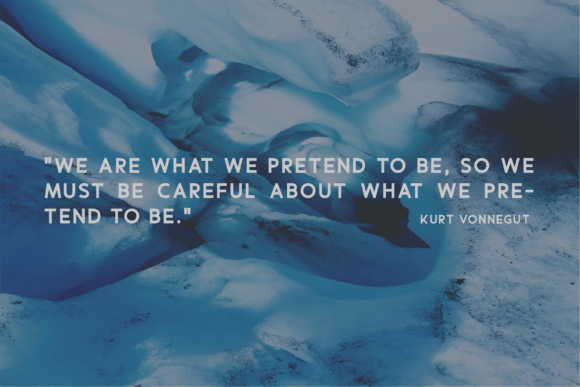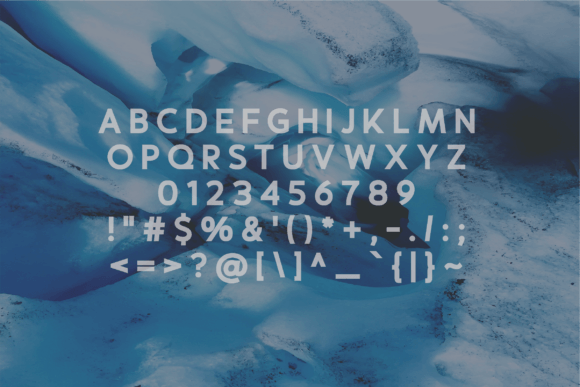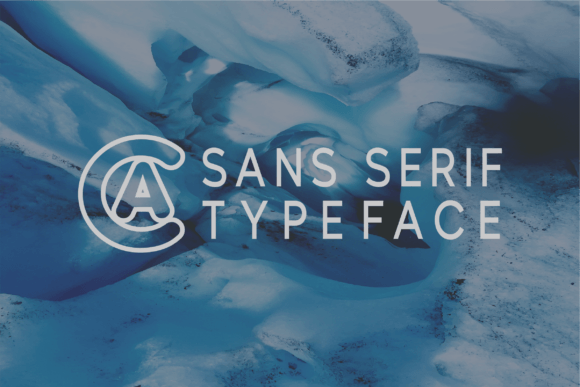
Introduction to Pretosh Loving Font Font
Fonts play a crucial role in design, and the Pretosh Loving Font font is a typeface that brings both character and versatility to any project. Whether you’re working on a branding project, a website, or a print design, the Pretosh Loving Font font offers a unique style that can elevate your work.
Pretosh Loving is a versatile, modern, and classy sans serif font perfect for logos, weddings, invitations, quotes, advertisements, print, magazines, and more.
Add it to your most creative ideas, and notice how it makes them come alive .
Key Features of Pretosh Loving Font Font
Why Choose Pretosh Loving Font Font?
The Pretosh Loving Font font is more than just a typeface – it’s a design tool that helps you communicate your message with style and clarity. Its unique character set and versatile design make it suitable for a wide range of applications, from elegant invitations to bold headlines.
With its carefully crafted letterforms and balanced proportions, the Pretosh Loving Font font ensures readability and visual appeal across all mediums.
What makes Pretosh Loving Font font special?
The Pretosh Loving Font font stands out with its unique design, exceptional readability, and versatility across various design applications.